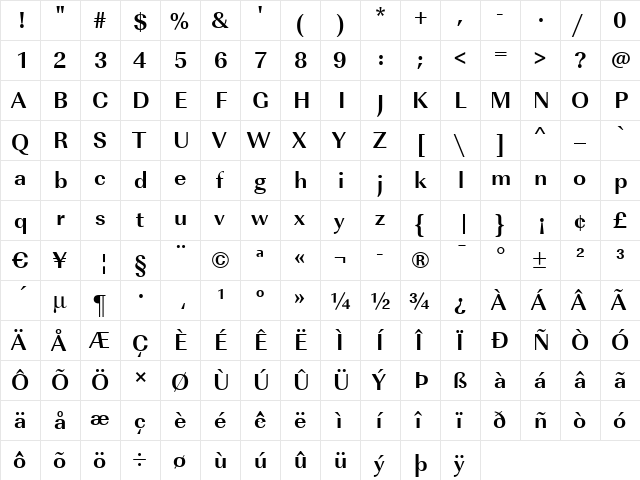
RicoBecker Bold
Design Context for RicoBecker Typeface
RicoBecker takes a measured approach to typography — its balanced proportions and neutral character make it a reliable workhorse for both digital and print work. The heavy weight commands attention and anchors typographic hierarchies.